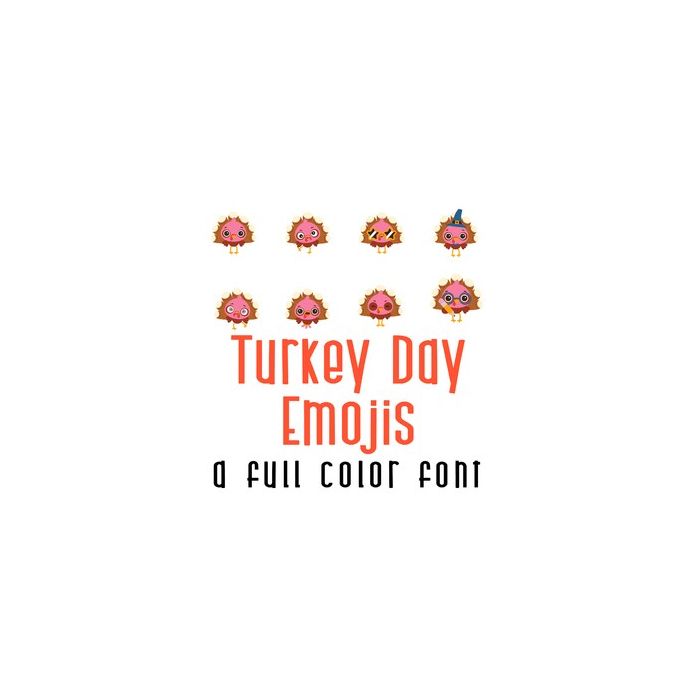
This adorable full-color doodlebat font features 26 adodrable turkey emojis. Perfect for cards, crafts, gifts, decor, scrapbook pages, planner stickers, and more!